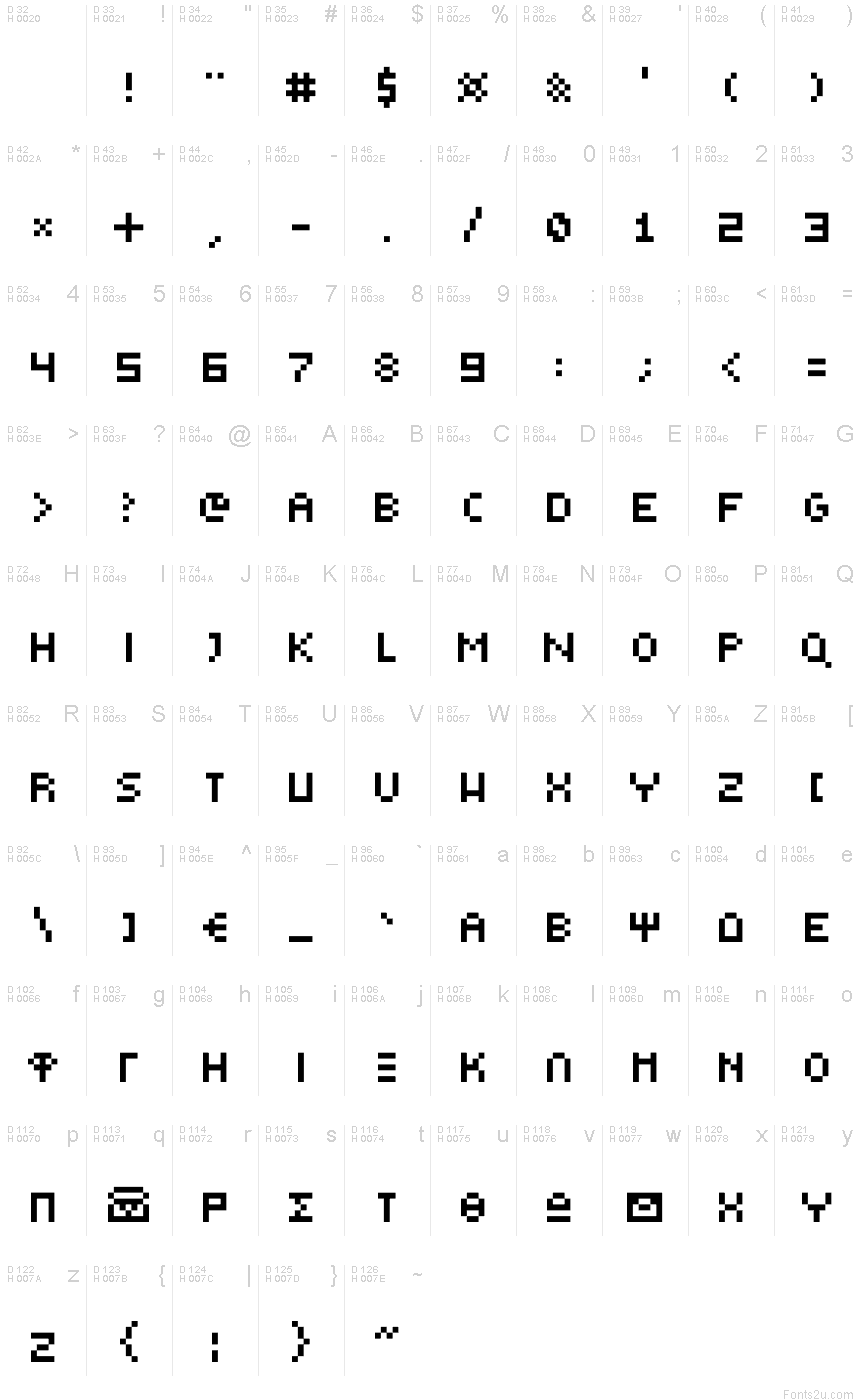
GreekBearTinyE
Greek Bear Tiny E font by Giannisgiann is a free pixel bitmap typeface with a bold, maze-like rhythm that snaps straight off the grid. Each letter is built from chunky square modules, giving words a tight, mechanical stride that feels both retro and slightly futuristic, like a hacked 8-bit console. The solid black forms read clearly even at tiny sizes, but really pop when scaled up, where their stair-stepped edges become a graphic pattern of their own.
Using Greek Bear Tiny E, you can give game titles, in‑game HUDs, pixel art zines, electronic music flyers, tech stickers, and glitchy social posts a strong, modular voice. The consistent block structure keeps layouts looking organized, even when the copy is loud and punchy. This free font pairs well with a simple, rounded sans for body text, or you can run it huge as a headline and let the grid do all the talking.
I created this font using the Pentacom font editor because I could not find any freeware Greek font.
The font contains only 1 set; lowercase letters are used for Greek text.